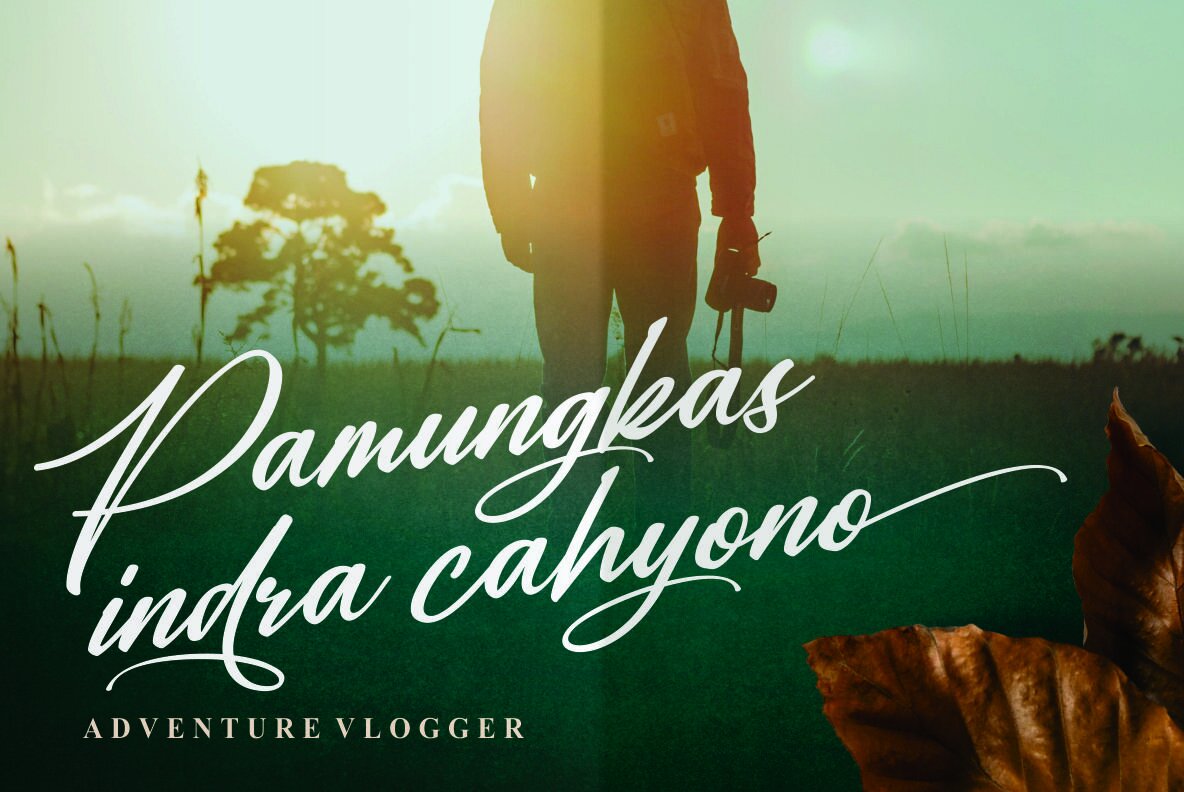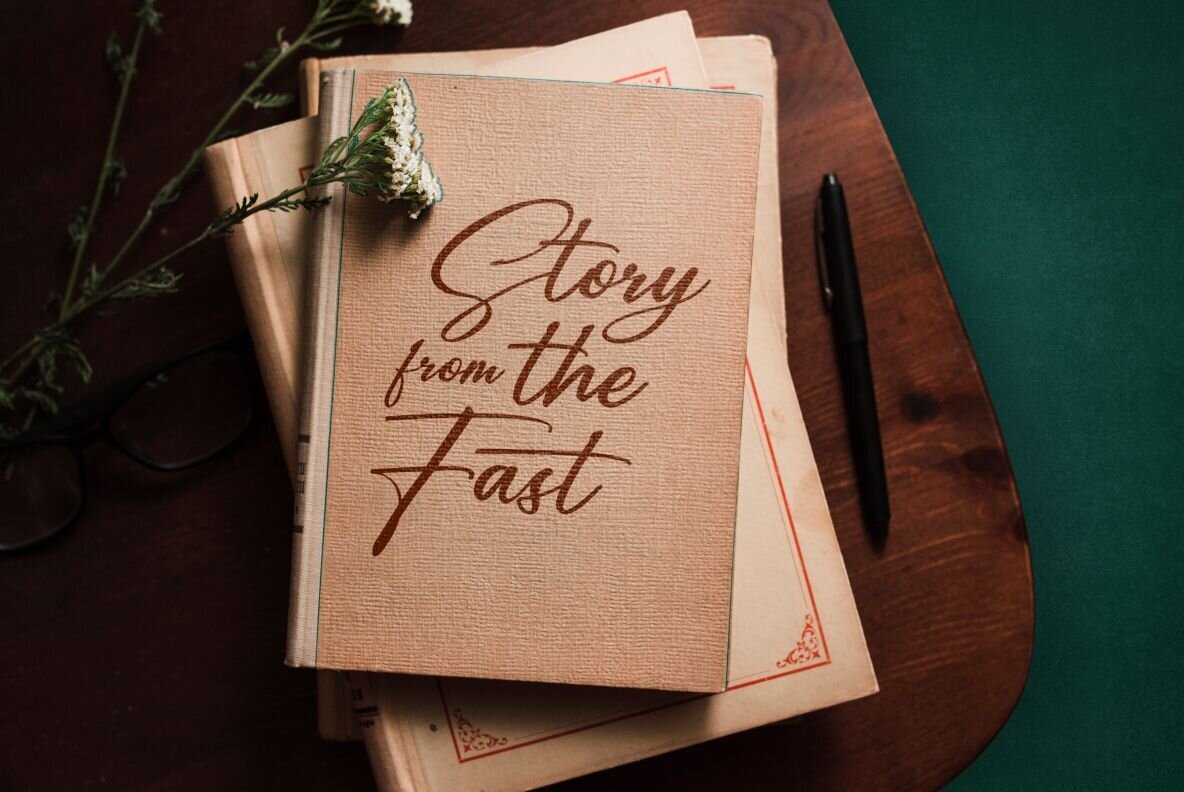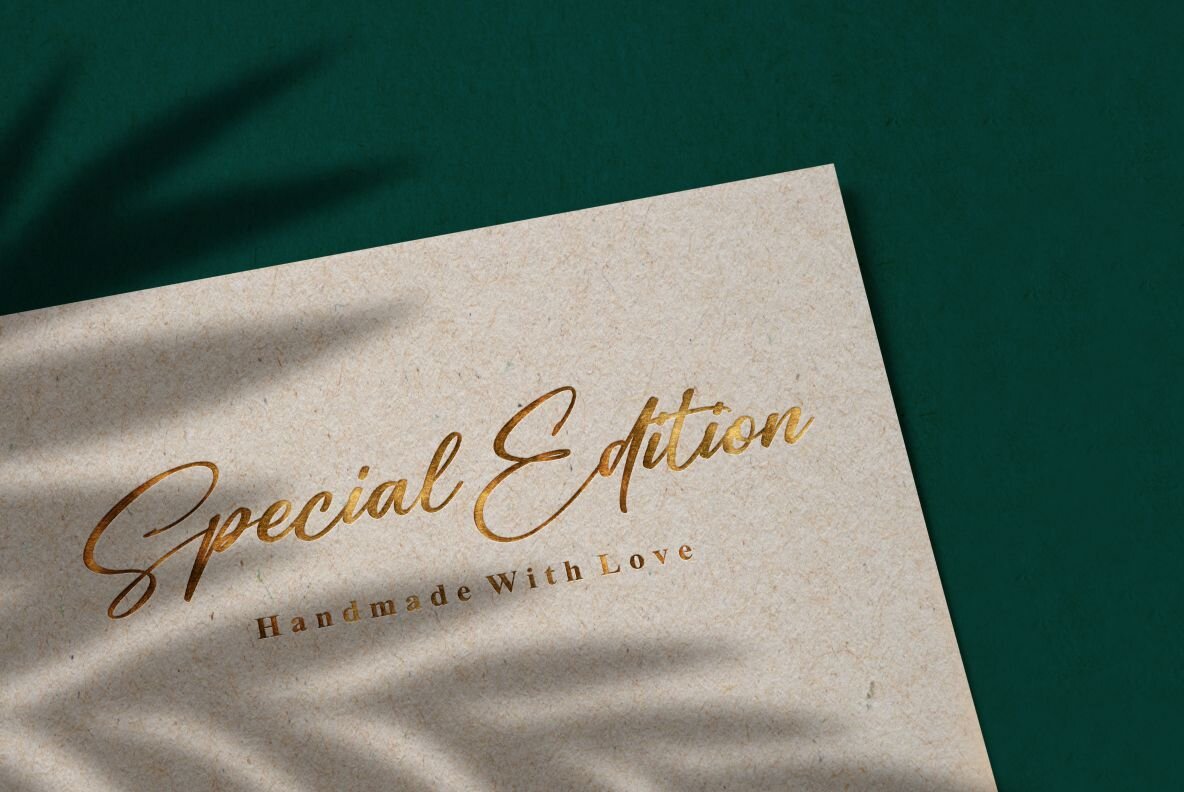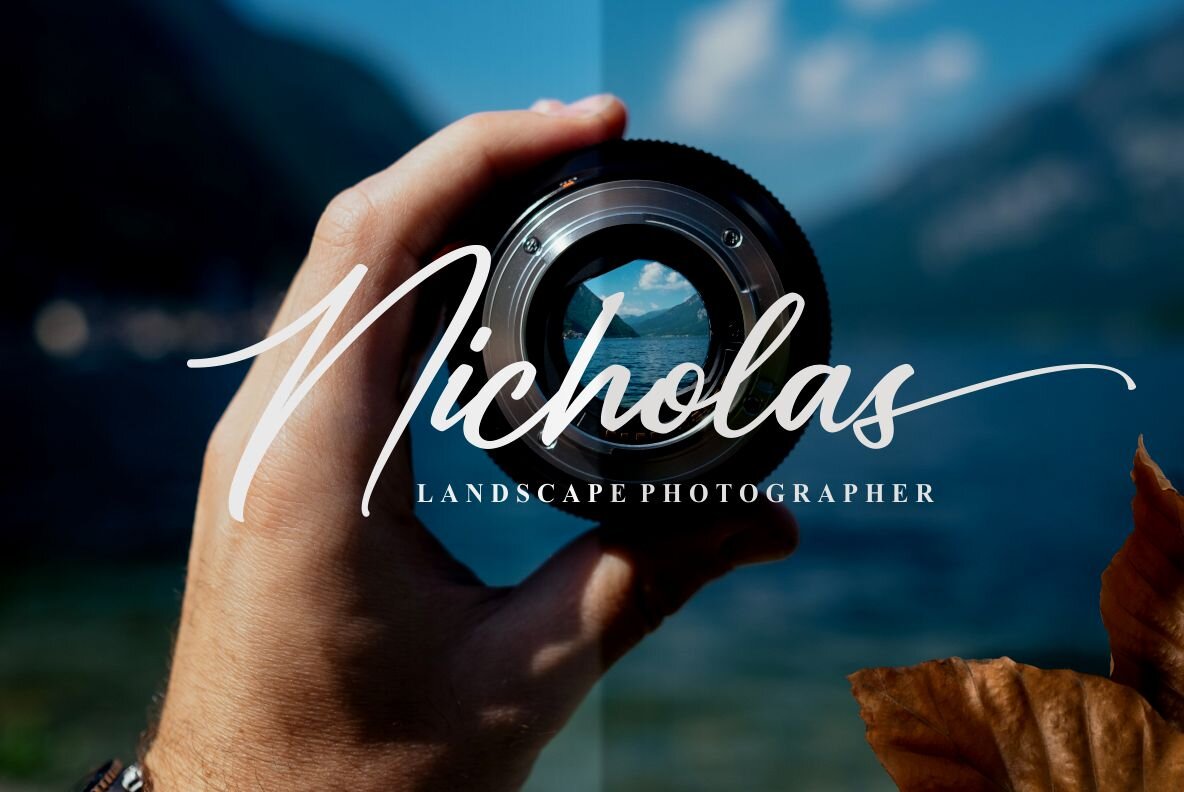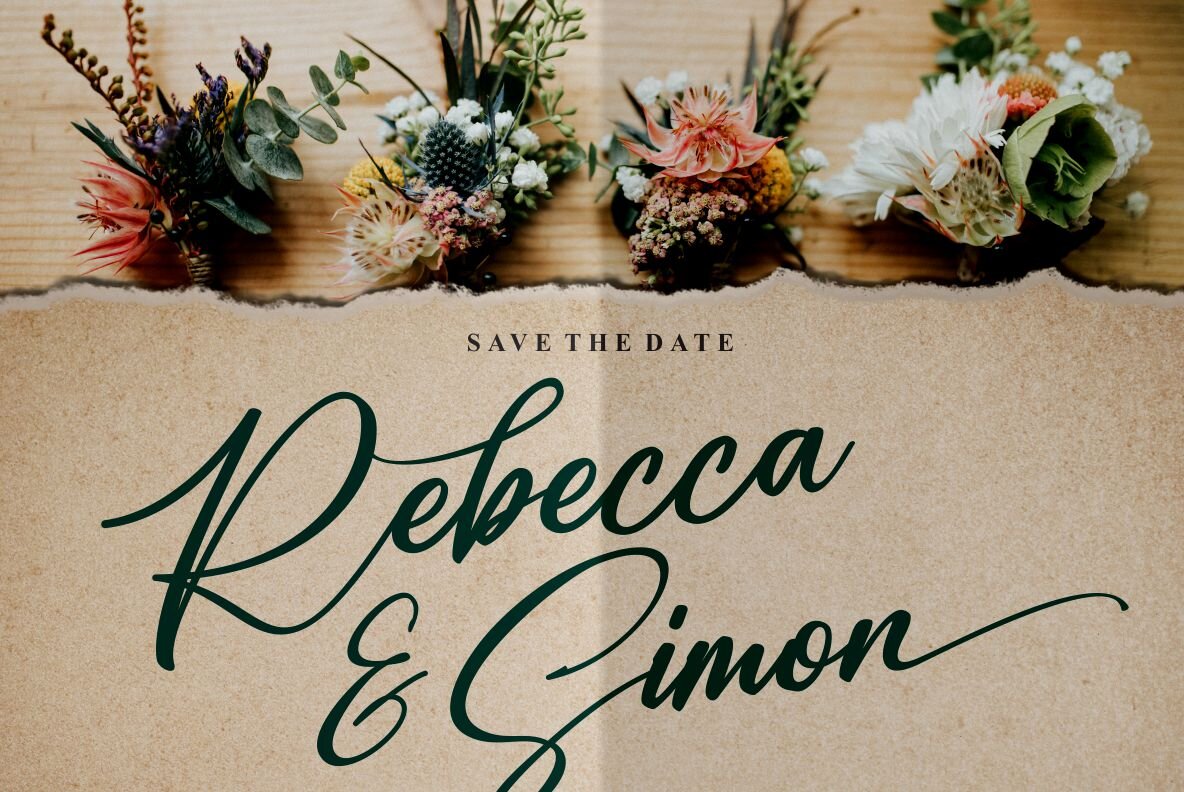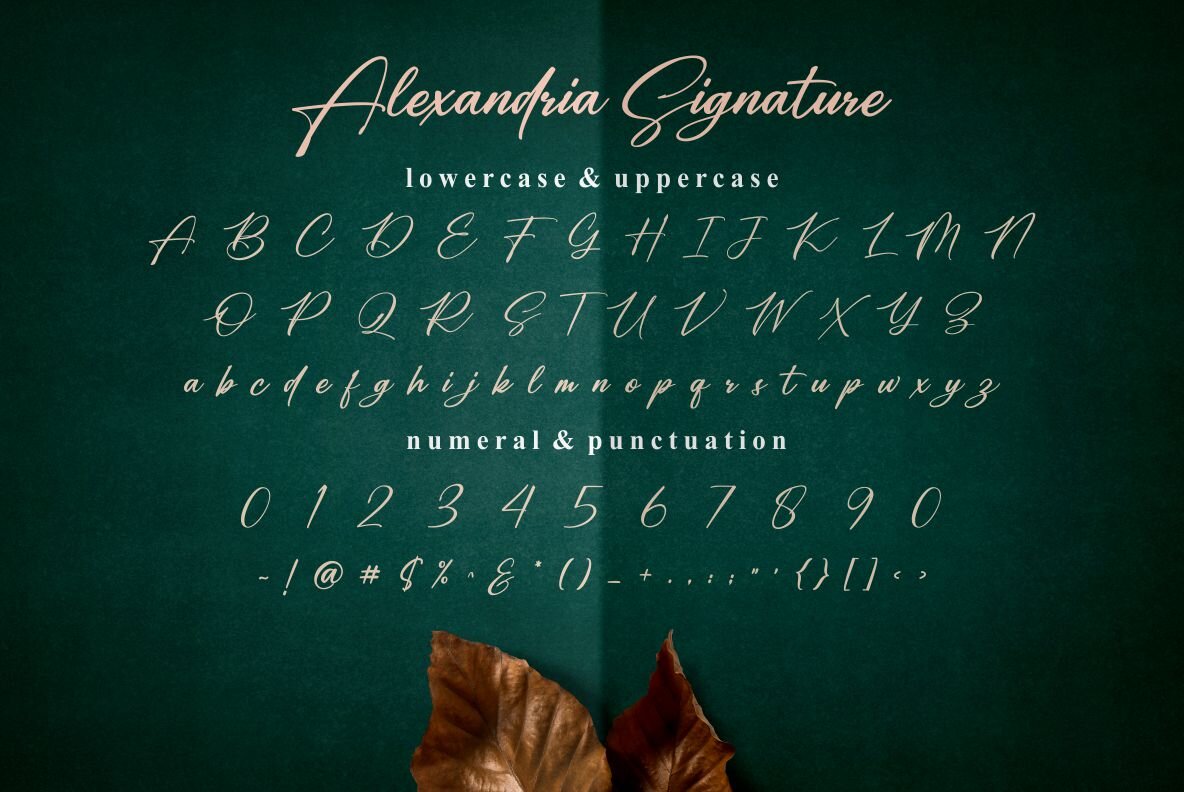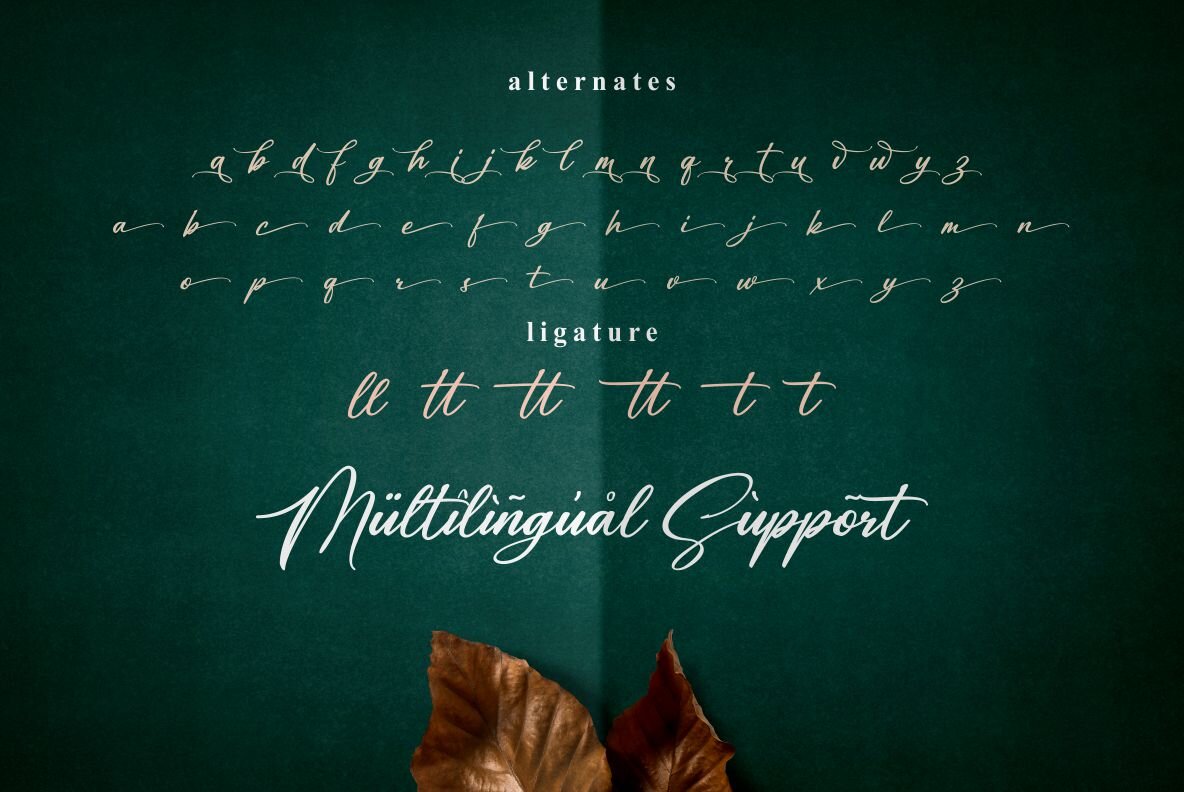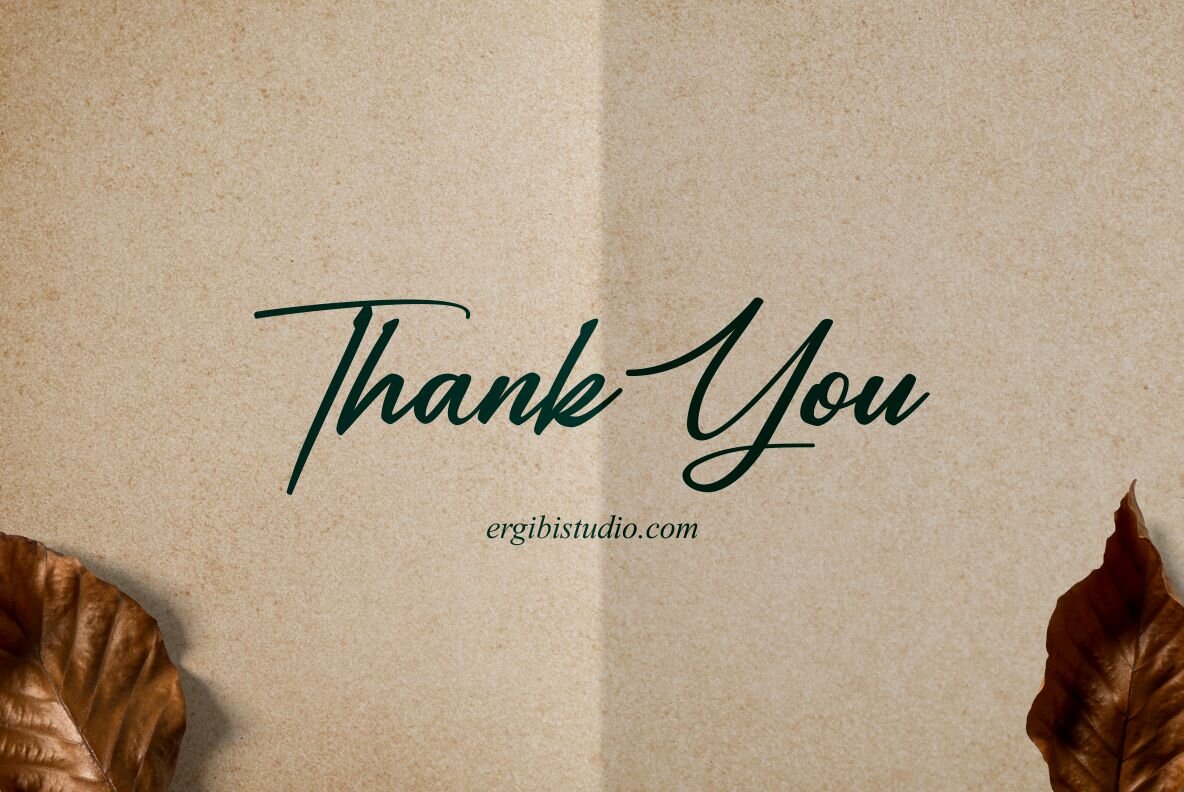
Alexandria Signature Font
Alexandria Signature
Alexandria Signature offers a blend of modern elegance and professional design, perfect for creating unique signature logos and watermarks. Its distinct character makes it an ideal choice for photography studios or personal branding needs, whether crafting an initial logo or brand signature.Alexandria Signature: Elegant Handwriting for Professional Branding